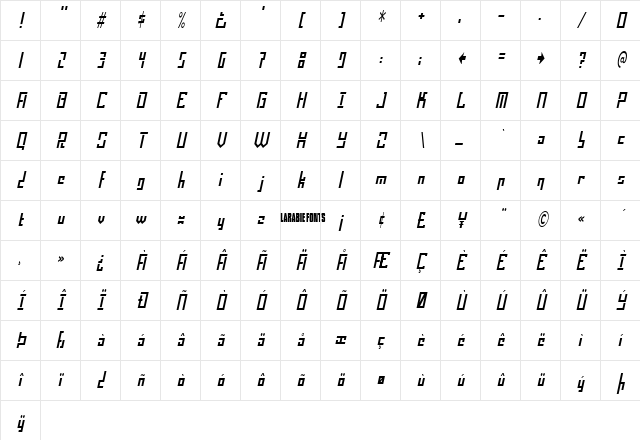
Operational Amplifier Regular
Operational Amplifier Family
Design Context for Operational Amplifier
Operational Amplifier is a composed and adaptable typeface that performs quietly and consistently across a wide range of design contexts.